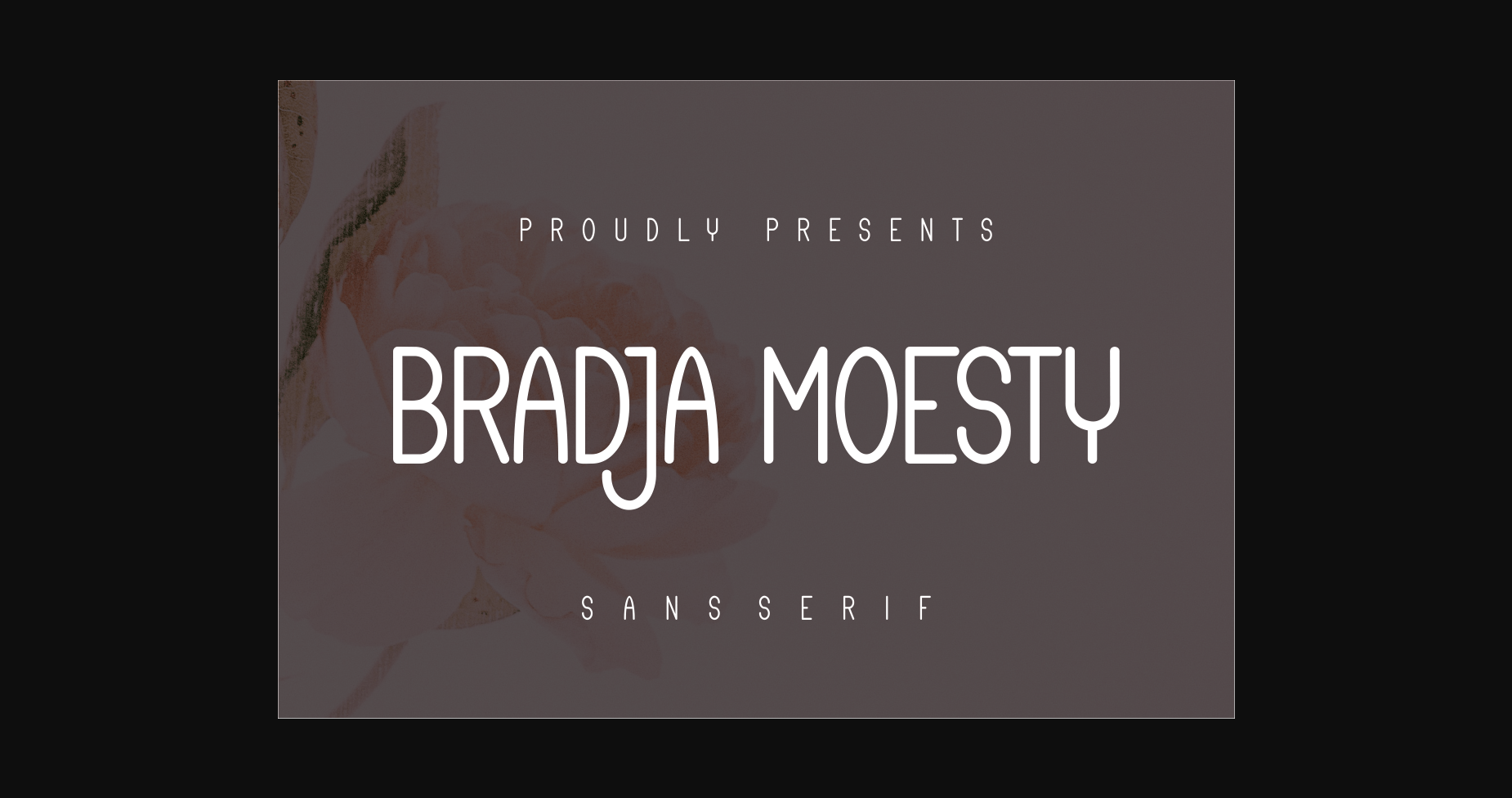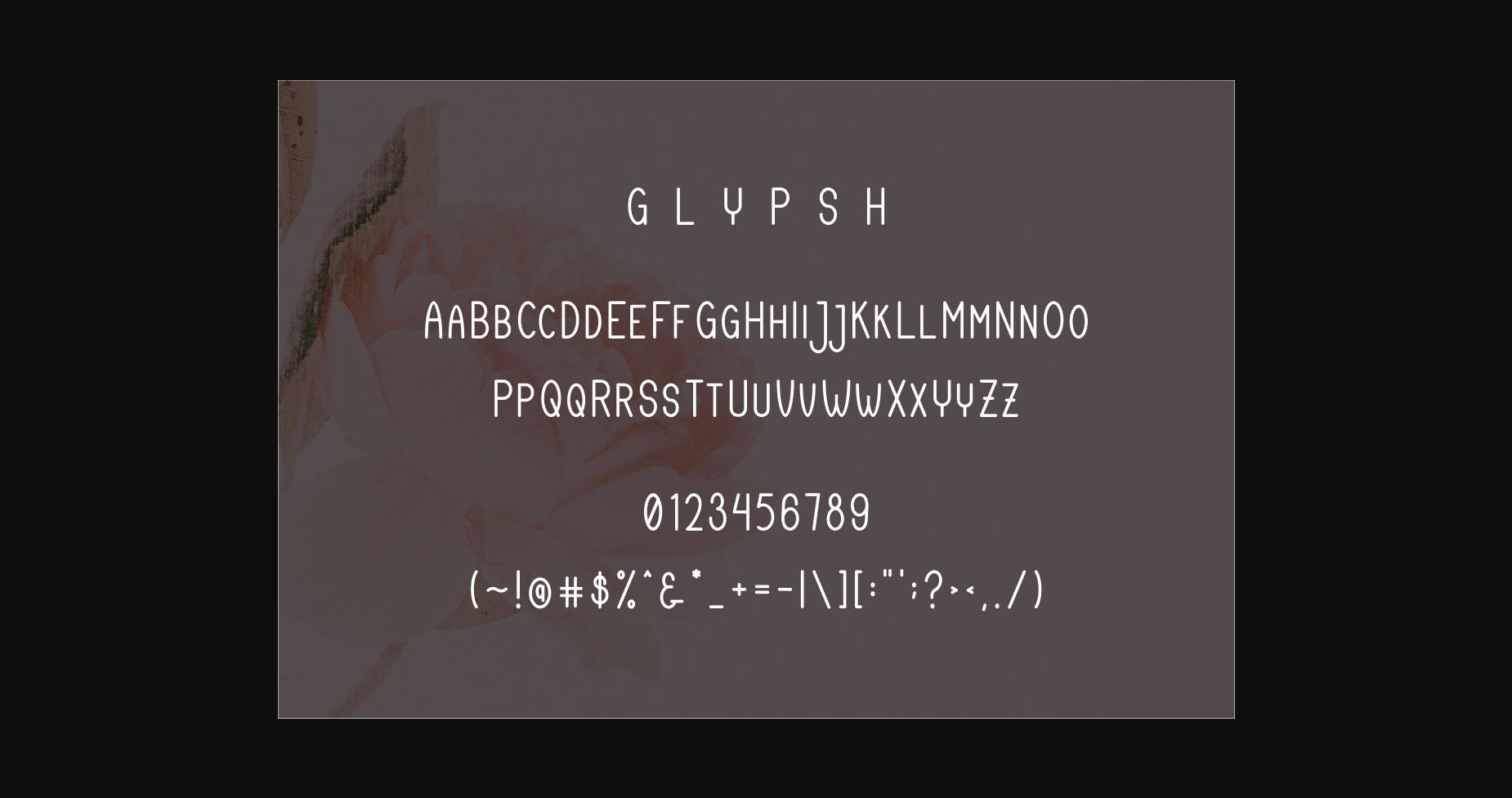
Bradja Moesty Font
About Bradja Moesty Font
Bradja Moesty is a sans serif font that is bold and has character.
The sans serif-like font design makes it look tough and rounded for easy reading.
A font like this is perfect for a work introduction, product description, or shop banner. Different from the standard font, it is not bold, it takes a close distance for it to be read properly.